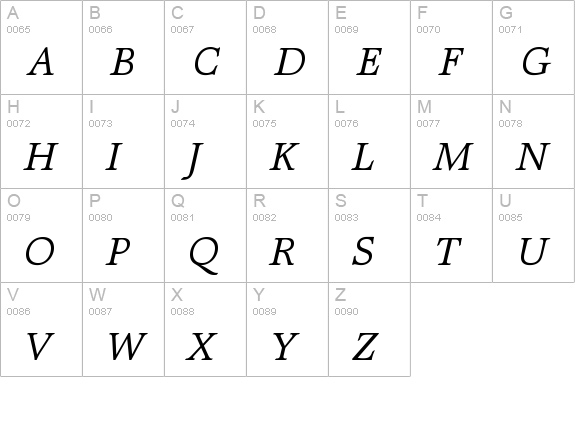
Matt Antique Italic is a distinctive, italic variant in the Matt typeface family \xE2\x80\x94 well suited to design and typography projects.
Introducing the exquisite and elegant Matt Antique Italic font, a timeless typeface that exudes sophistication and charm. This font offers a unique blend of classic and modern design elements, making it ideal for adding a touch of refinement to any project. With its graceful curves and delicate serifs, Matt Antique Italic brings a sense of old-world beauty to your typography. Whether used for invitations, branding, or editorial design, this font is sure to make a lasting impression. Best of all, Matt Antique Italic is available for free download at FontsMarket.com. So go ahead and elevate your designs with this stunning typeface today!